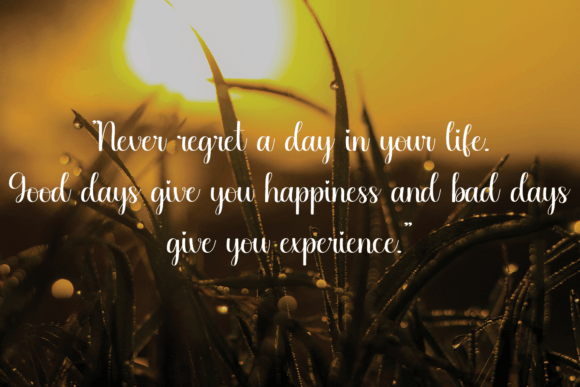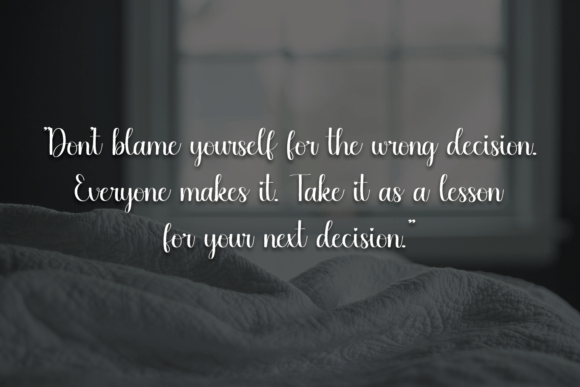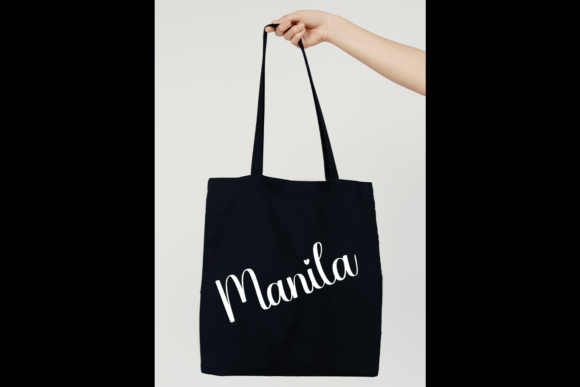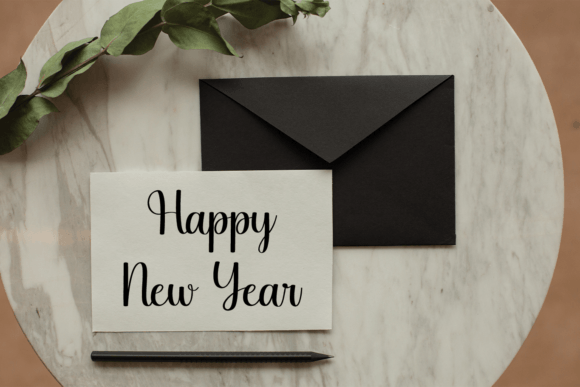
Bright Morning Font
About Bright Morning Font
“Bright Morning” is a chic and refined script font designed to exude sophistication and elegance. With its stylish alternates and ligatures, this font is the perfect match for a wide range of creative projects, adding a touch of class and flair to your designs.
The chic and refined nature of “Bright Morning” makes it a standout choice for projects that require a touch of sophistication. Whether you’re working on invitations, branding materials, or any other design where an elegant script is essential, this font elevates the overall aesthetic.
The inclusion of stylish alternates and ligatures enhances the versatility of “Bright Morning.” These design elements provide variation and fluidity to the text, creating a dynamic and visually appealing result. This makes the font well-suited for projects that demand a high level of attention to detail and a personalized touch.
In invitations and stationery, “Bright Morning” adds a touch of glamour and refinement. Its script style enhances the elegance of wedding invitations, formal event announcements, or any design where a sophisticated and polished look is desired.
For branding materials, this font becomes a key element in creating a visual identity that exudes class. Whether it’s logos, business cards, or promotional materials, “Bright Morning” adds a level of sophistication that communicates professionalism and style.
The script’s ability to come alive in various creative projects is a testament to its versatility. “Bright Morning” adapts seamlessly to different design contexts, allowing you to explore its potential in a wide array of applications.
Overall, “Bright Morning” is more than just a font; it’s a design asset that brings a sense of chic refinement to your projects. Its stylish alternates and ligatures set it apart, ensuring that your designs not only meet but exceed the expectations of elegance and sophistication. Whether you’re working on print or digital media, “Bright Morning” stands out as a font that adds a touch of glamour and liveliness to your creative endeavors.